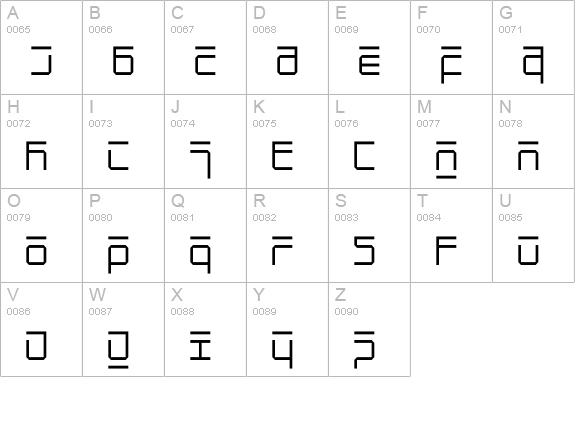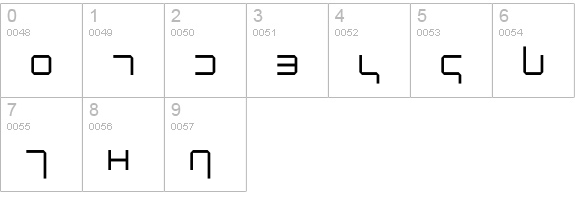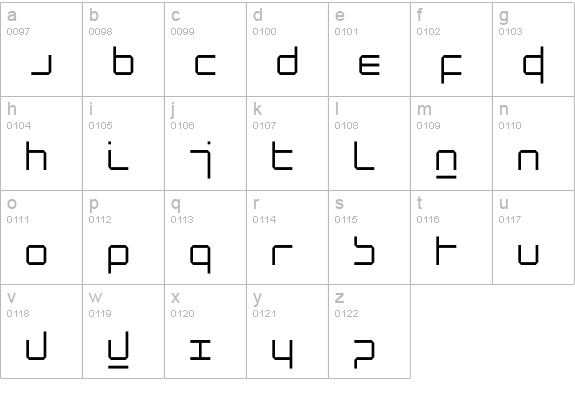
NewAlphabetTwo Font Details
Introducing NewAlphabetTwo, a modern and stylish font that brings a fresh twist to traditional typography. With its unique blend of sharp angles and smooth curves, NewAlphabetTwo is sure to make your designs stand out from the crowd. This versatile font is perfect for a wide range of projects, from branding to packaging to social media graphics. What makes NewAlphabetTwo even more appealing is that it is available for free download at FontsMarket.com. Yes, you read that right – this stunning font can be yours at no cost! Don't miss out on the opportunity to add NewAlphabetTwo to your font collection and elevate your design projects to new heights. Download it today and let your creativity soar with this captivating typeface.